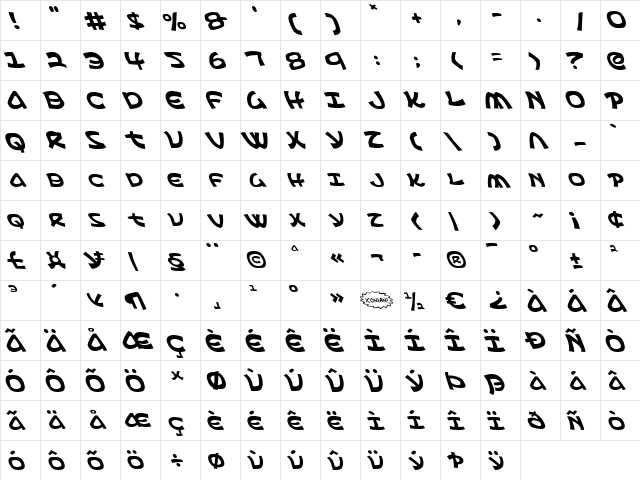
Ephesian Leftalic Font Preview
Ephesian Leftalic Leftalic
Ephesian Leftalic Font Details
Design Context for Ephesian Leftalic Typeface
Ephesian Leftalic offers clean, dependable letterforms without strong stylistic allegiance, making it a practical choice for designers who need flexibility. The dynamic lean of this cut emphasises speed and emphasis in any layout.
Pro Tip: Use Ephesian Leftalic for emphasis, pull quotes, and subheadings where its slanted energy can add rhythm to the layout.